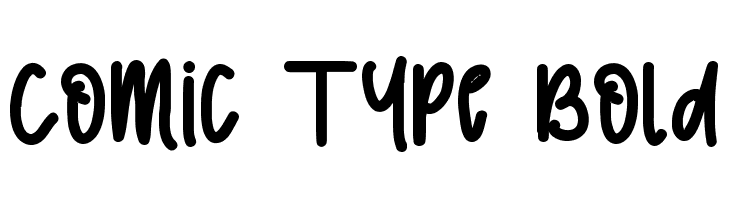
( Fonts by www.blambot.com )
A bold, rounded, and slightly slanted font with a dynamic and energetic style.
( Fonts by Kenneth Hirst )
A modern, geometric sans-serif font with uniform strokes and balanced proportions.
( cody - Codin Repsch )
A bold, rounded font with smooth curves and uniform strokes.
A bold, condensed, and italicized font with a dynamic and modern style.
( Fonts by Dieter Steffmann )
Ornate blackletter initials with decorative floral borders.
( William Jeovah de Medeiros - www.william.com.br )
A bold, italic, handwritten-style font with a playful and dynamic appearance.
A bold, geometric font with strong, angular lines and a blocky appearance.
设计师偏爱 Self Destruct Button BB Bold, Siddiqua, donner Bold, Butch & Sundance Condensed Italic and Back in the newer days,因为其造型干净、适用范围广—— 从品牌识别到落地页、海报都能胜任。